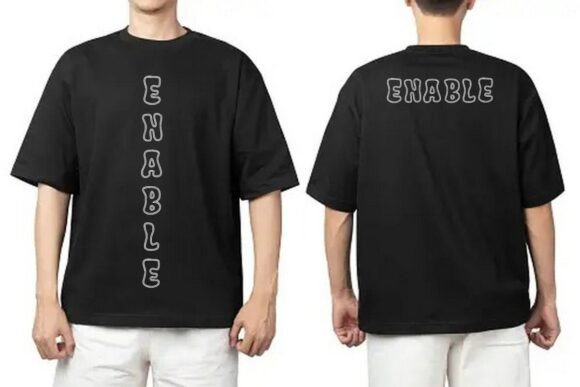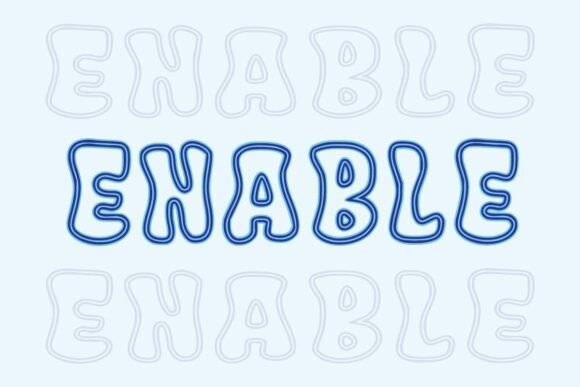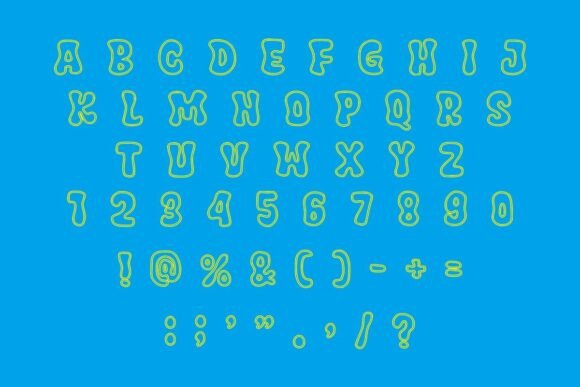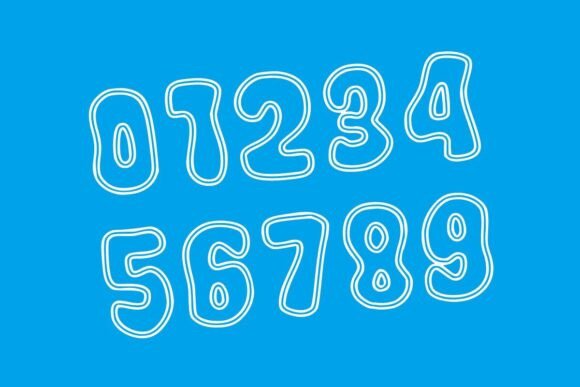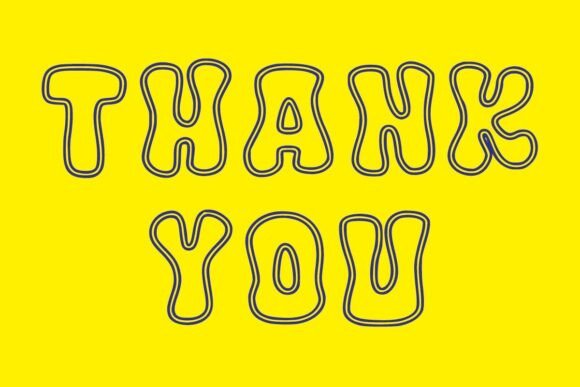
Introduction to Enable Font
Enable is a sporty and fun display font.
Add it to your projects, t-shirts, childrenโs short stories, price tags, films, school books, gatherings, or almost any design that needs a touch of youth and playfulness .